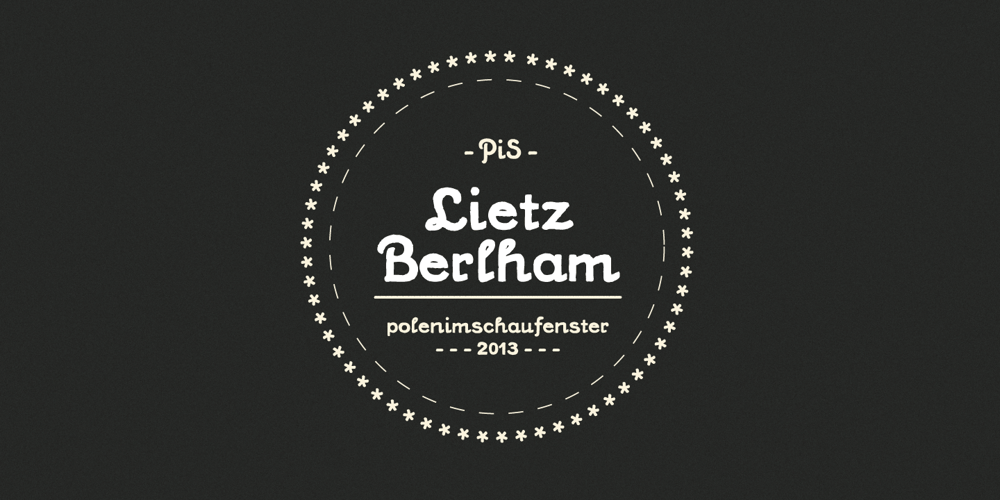
PiS LIETZ Berlham
PiS LIETZ Berlham font
PiS LIETZ Berlham Font Family was designed by Hannes Siengalewicz and published by PiS. PiS LIETZ Berlham contains 1 styles and family package options. Need a perfect typeface for your post-apocalyptic shooting game? A documentary about suffragettes? Your vintage themed coffeeshop? PiS Lietz Berlham! Boom! Just as his straighter brother LIETZ Lindham, Lietz Berlham evokes the spirit of the 1920s and 30s. Hand-drawn and rough, it is perfect for large scale use in all things retro, but legibility is given also in smaller sizes. It features over 370 glyphs, ligatures and special characters. Have fun!